Haston is a stunning font duo with a cool feel. It will add a unique charm to any creative project.
Vervelle feels charming and vibrant and will turn any design project into a true standout. Get inspired by its unique charm!
Mogan is a modern serif, with some alternates and ligatures that are perfect for branding materials, t-shirts, logos, posters, photography, quotes, and many more. Modern Serif font type to complete your display creation such as wedding invitation cards, etc.
Rattamuka is a romantic and sweet calligraphy typeface with characters that dance along the baseline. It has a casual, yet elegant touch.
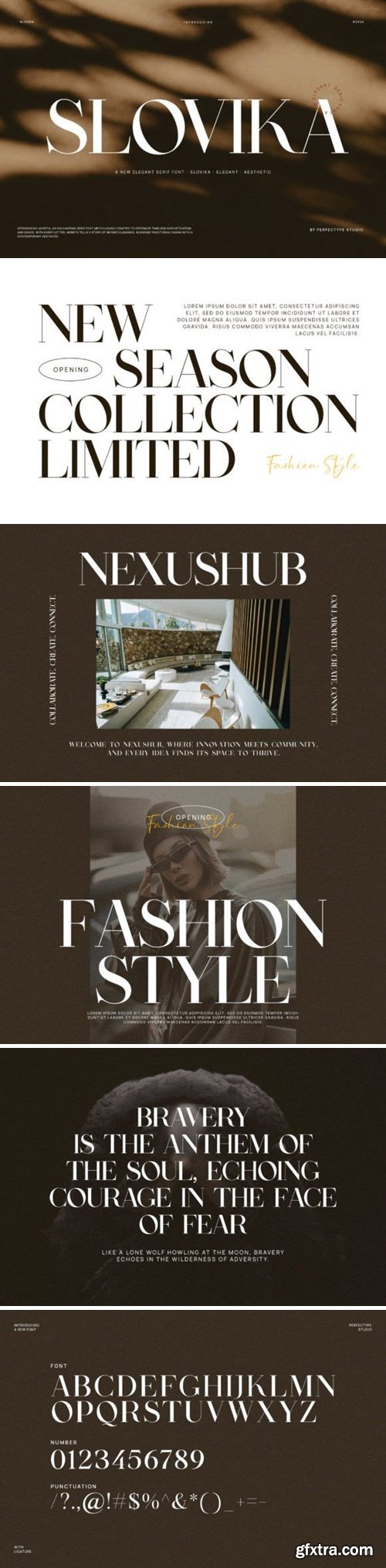
Slovika is a modern, stylish, and elegant serif font that blends sophistication with contemporary flair. With clean lines, balanced proportions, and subtle details, this typeface adds a touch of refinement to any design project, from editorial layouts and branding to luxury packaging and invitations.
Pixbit is a fun, pixel geometric display font reminiscent of retro video games. Its blocky yet playful design adds a nostalgic touch to any project. Perfect for titles, headers, and digital artwork, Pixbit brings a quirky charm and a hint of vintage flair to your designs.
Pollard is a modern, neat sans-serif font designed for clarity and versatility. With clean lines and balanced proportions, it offers a contemporary aesthetic suitable for a wide range of applications. From branding to editorial design, this font brings a sense of professionalism and sophistication to any project.
Kinova is a modern, neat sans-serif font designed for clarity and versatility. With clean lines and balanced proportions, it offers a contemporary aesthetic suitable for a wide range of applications. From branding to editorial design, Kinova brings a sense of professionalism and sophistication to any project.
Brokstate is a cool, sporty display font that exudes strength and athleticism. With bold, angular letterforms and a dynamic energy, it’s perfect for sports logos, team jerseys, and motivational posters. Whether on the field or in design, Brokstate commands attention and conveys a competitive spirit.
Peasante is a refined serif font radiating elegance and sophistication. With its sleek lines and balanced proportions, Peasante exudes a timeless appeal suitable for various design applications. Whether used for editorial design, branding, or elegant invitations, this font adds a touch of class and refinement to any project.
Vespera is a refined serif font radiating elegance and sophistication. With its sleek lines and balanced proportions, Vespera exudes a timeless appeal suitable for various design applications. Whether used for editorial design, branding, or elegant invitations, this font adds a touch of class and refinement to any project.
Kanes is a refined serif font radiating elegance and sophistication. With its sleek lines and balanced proportions, Kanes exudes a timeless appeal suitable for various design applications. Whether used for editorial design, branding, or elegant invitations, this font adds a touch of class and refinement to any project.
Shadows Fright is a spooky display font that sends shivers down the spine with its eerie design. Each letter casts long, haunting shadows, evoking a sense of mystery and fear. Perfect for Halloween-themed designs, horror movie posters, and anything that needs a touch of macabre ambiance.
Introducing Beauty Romantic, a script font that captures the essence of romance with its natural and graceful strokes. Inspired by the beauty of nature, this font exudes an organic charm that evokes feelings of love and tenderness. Perfect for projects that aim to convey romance and affection, such as wedding invitations, love letters, or romantic quotes, Beauty Romantic adds a touch of elegance and sincerity to your designs, creating a truly captivating and heartfelt expression of love.
Introducing Roadhand, a handwritten script font that brings a personal touch to your designs. With its natural and fluid strokes, this font captures the spontaneity and authenticity of handwritten text. Perfect for projects that seek a casual and approachable vibe, such as greeting cards, journal entries, or social media graphics, Roadhand infuses your designs with a genuine and down-to-earth feel, creating a connection that resonates with authenticity and warmth.
Introducing “Whistle cat” – an original hand-drawn font with retro 60’s decorative vibes. Embrace the nostalgia of the past with this charming and playful typeface. Perfect for adding a touch of whimsy to your designs, “Whistle cat” is ideal for posters, logos, invitations, and more. With TTF, OTF, and WOFF files included, it’s easy to bring your creative vision to life.
IIntroducing the captivating Easter Egg Handwritten Font digital download! Unleash your creativity with this charming font that adds a whimsical touch to any project. Perfect for invitations, greeting cards, posters, and more, this delightful font is sure to make your designs stand out!
Introducing Tavari, the perfect blend of serif, modern, and elegant elements. Flaunting a bold demeanor, this versatile font family makes a memorable accent to any brand. Originally devised for apparel and authentic visuals, Tavari works a charm on book covers and within the pages too, lending its charisma to branding and cards alike. Make your cover designs stand out, impart a warm greeting with Tavari-styled cards, and give your logos a unique identity that lingers in the audience’s mind. Also excelling at packaging designs and youthful t-shirt prints, this font poses a trendy statement while incorporating seasonal vibes into a multilingual structure. Tavari’s clean calligraphy serves equally well in magazine layouts and adds a dash of chic to any quotation. This font family offers the perfect baseline regular and an expressive italic variant for versatile use. Experience grace, boldness, and modernity that’s truly Tavari.